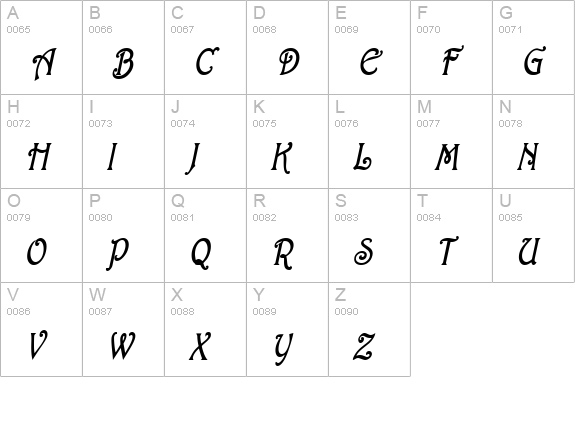
ParisianCondensed Bold Italic Font Details
ParisianCondensed Bold Italic is a strong, high-contrast, italic variant in the ParisianCondensed typeface family \xE2\x80\x94 well suited to headlines, attention-grabbing titles, and strong calls-to-action.
ParisianCondensed Bold Italic is a stunning and sophisticated font that effortlessly captures the timeless elegance of Parisian design. With its bold and italicized style, this font exudes confidence and brings a touch of luxury to any project. The carefully crafted letterforms of ParisianCondensed Bold Italic showcase a harmonious blend of classic and contemporary elements. Each character has been meticulously designed to create a sense of balance and refinement, making it the perfect choice for high-end branding, editorial layouts, and elegant invitations. The versatility of ParisianCondensed Bold Italic allows it to seamlessly adapt to a variety of design needs. Whether you're aiming for a refined and luxurious look or a modern and edgy aesthetic, this font effortlessly delivers with its bold and italicized presence. One of the most appealing aspects of ParisianCondensed Bold Italic is that it is freely available to download at FontsMarket.com. This means that designers and creatives can access this exceptional font without any cost or restrictions, making it a valuable asset for both personal and commercial projects. So, if you're looking to elevate your designs with a touch of Parisian sophistication, look no further than ParisianCondensed Bold Italic. Its bold and italicized style, combined with its availability as a free download at FontsMarket.com, makes it an irresistible choice for those seeking elegance and versatility in their typographic endeavors.